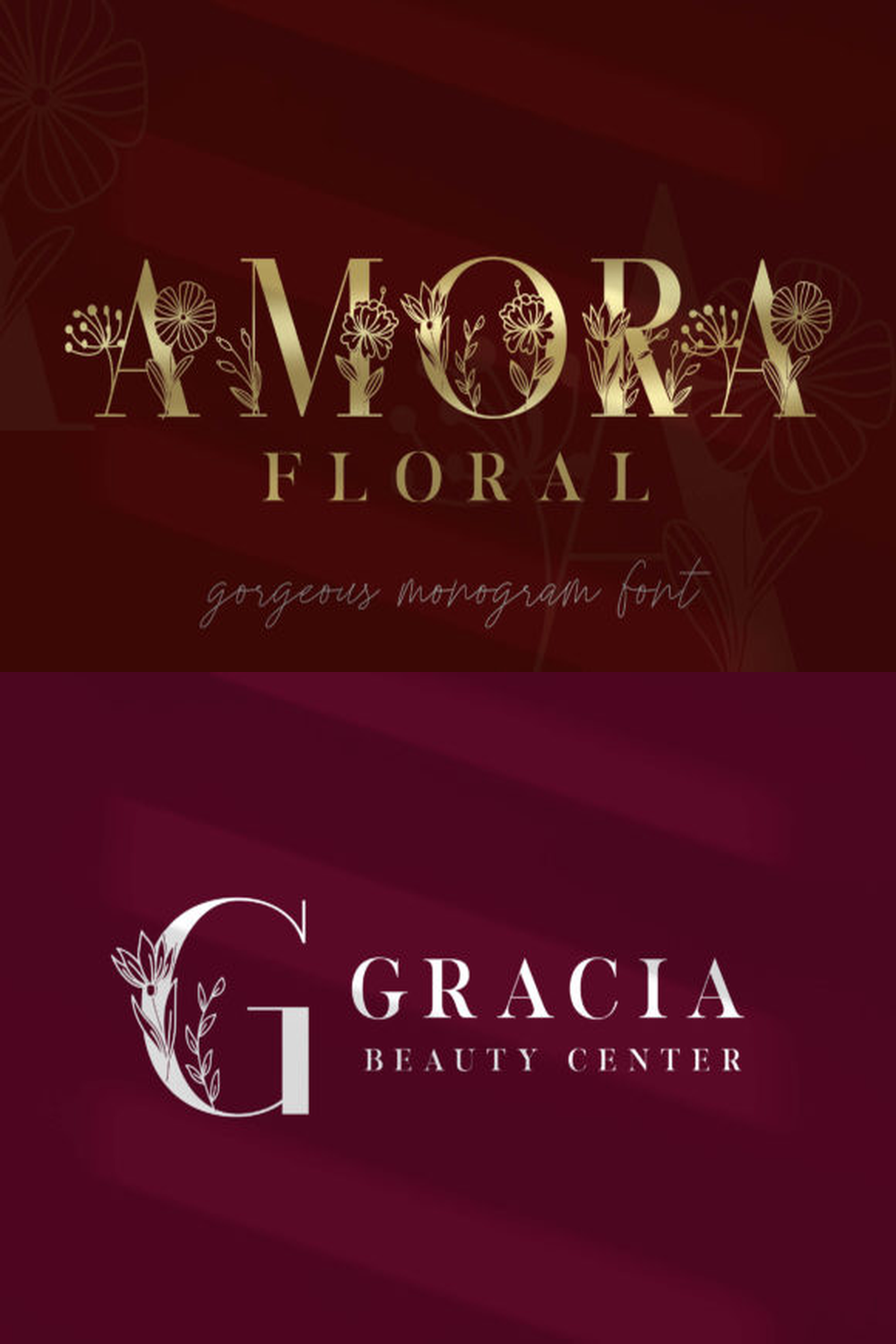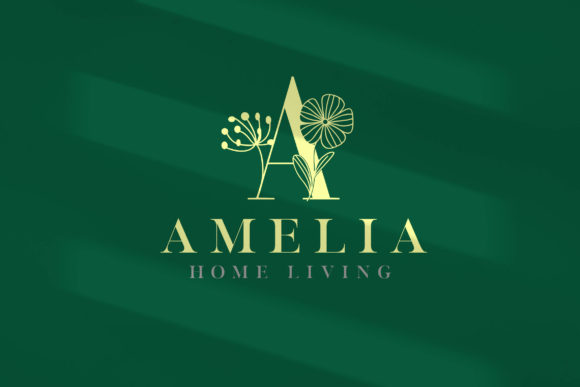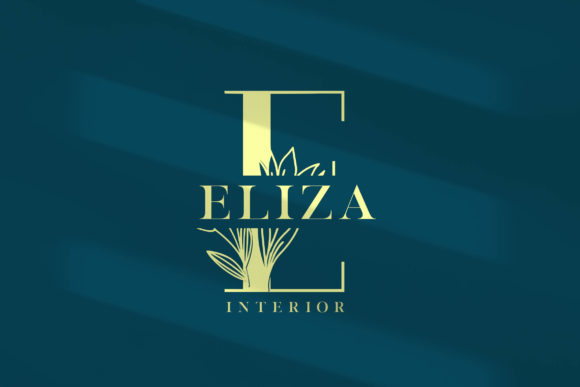
Amora Elegant Monogram Font
About the Amora Elegant Monogram Font
The wait is over! The incredible Amora Elegant Monogram Font is now available for your design toolkit. Amora Elegant Monogram is a dainty and unique decorative font. Add this romantic and lovely looking font to each of your love letters, wedding invitations or favorite design ideas, and you will be astounded by the outcome.
Amora Elegant Monogram Font Usage Examples